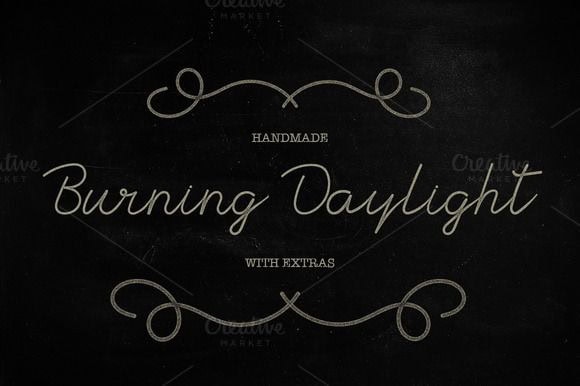
burning daylight
Unleash Your Creativity with Burning Daylight Font
Burning Daylight, crafted by talented designer Alex Smith in 2022, merges rugged style with modern aesthetics. This font is perfect for making bold statements in posters, logos, and branding materials. It blends contemporary and classic design ideals, giving your projects a unique rustic charm that stands out.
Features and Formats of Burning Daylight Font
The Inspiration Behind Burning Daylight Font
Inspired by breathtaking sunrises and rustic landscapes, Burning Daylight aims to evoke feelings of warmth and nostalgia. Designer Alex Smith’s vision was to create a typeface that conveys natural beauty and organic simplicity, making it ideal for eco-friendly brands and artisanal projects.
Ideal Uses for Burning Daylight Font
Burning Daylight shines in applications that demand a touch of rustic elegance. Whether for handcrafted product labels, promotional materials, or eye-catching event posters, this font adds a unique personality that captivates audiences and communicates authenticity.